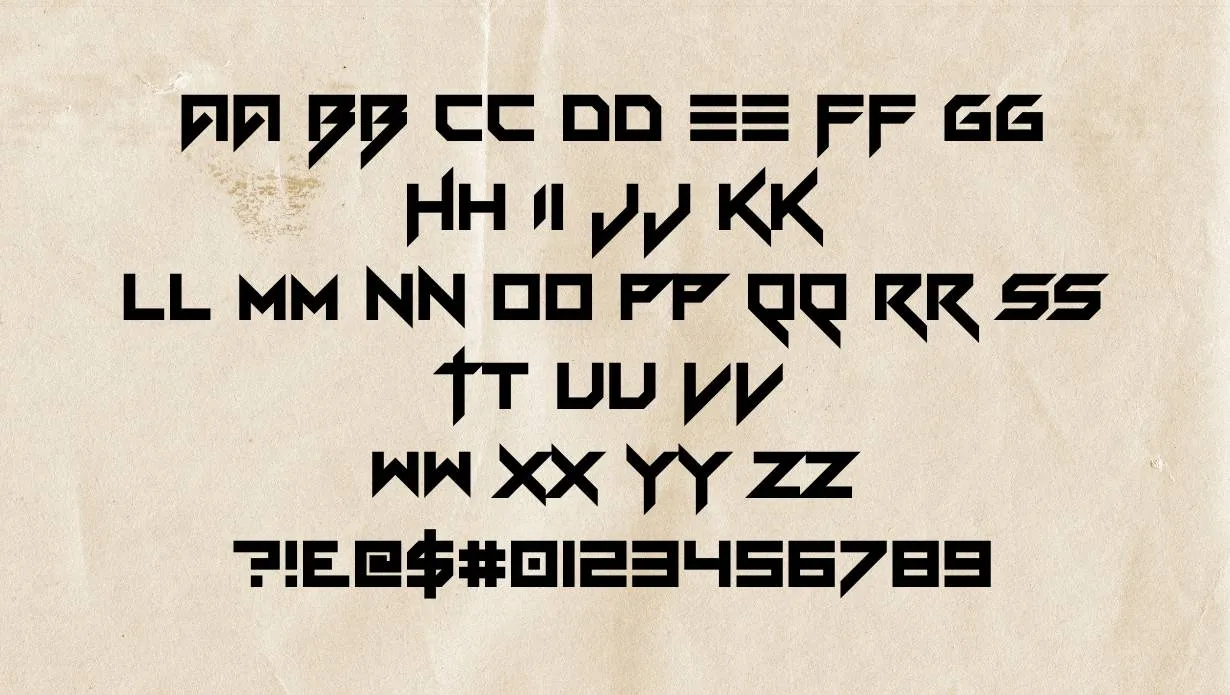
Vermin Vibes Font is a grungy and edgy typeface, perfect for designs with an underground and rebellious vibe. It belongs to the Techno fonts. This font is designed by Chequered Ink.
Vermin Vibes Font Family
| Name | Vermin Vibes Font |
| Designer | Chequered Ink |
| Style | Techno |